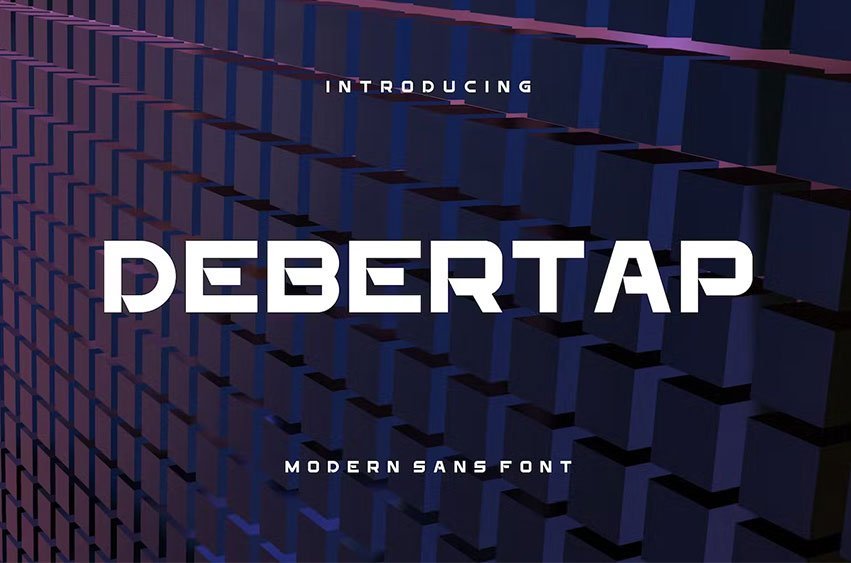
Debertap Modern Font is a bold and authentic display font. The font is suitable for any branding project like logo. outstanding in a wide range of contexts.